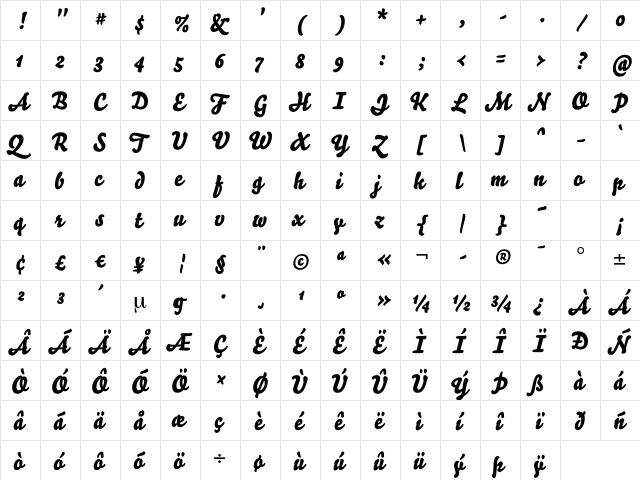
Bello Pro Regular
| Foundry | Underware |
Design Context for Bello Pro Typeface
Bello Pro is a composed and adaptable typeface that performs quietly and consistently across a wide range of design contexts.
Pro Tip: Pair Bello Pro with a font of contrasting weight or personality to build a more expressive typographic hierarchy.